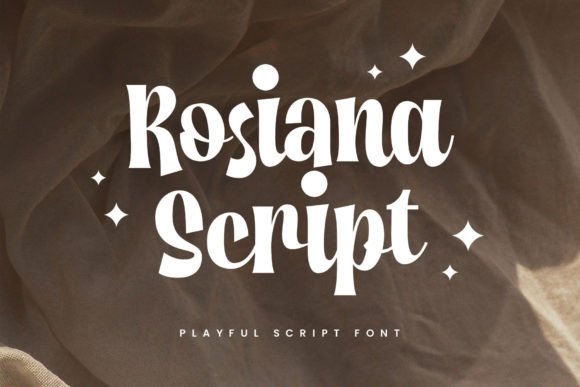
What Is Rosiana Script Font?
Rosiana Script is a bold, fun, and cheerful handwritten font designed to make your projects stand out. With its slightly bouncy baseline and elegant, energetic curves, Rosiana combines playfulness with professional polish. Each letter feels lively and approachable, instantly adding personality and style to your text.
This typeface is crafted to help you create dynamic, engaging designs that grab attention.
Rosiana Script is incredibly versatile and perfect for a wide range of creative applications. For example, it’s ideal for headlines and logotypes. The bold, flowing letterforms make brand names and titles look exciting and fresh.
Flyers, posters, and storefront signs feel more welcoming and impactful with Rosiana’s cheerful energy.
Quotes, stickers, and social media graphics come alive thanks to the font’s stylish curves and dynamic shapes. Your designs will stand out in any feed.
Merchandise like T-shirts, mugs, and tote bags also look more professional and appealing with Rosiana Script.
Even product packaging, labels, and event materials benefit from the font’s approachable, fun aesthetic.
Why Should You Choose Rosiana Script Font?
Rosiana Script stands out for its variety of options and ease of use. The font includes stylistic alternates and ligatures, giving you plenty of ways to customize your text and make it look truly unique.
Designers love that Rosiana Script looks polished and professional straight out of the box, saving time and ensuring consistent results.
Rosiana Script adds energy, friendliness, and a handcrafted feel to every project. Its smooth curves and dynamic flow create visual movement that draws the viewer’s eye.
Even minimalist layouts gain character and warmth with Rosiana’s cheerful, modern style. Whether you’re designing a headline, a quote graphic, or branded merchandise, this font elevates your work with ease.
Using a premium script font shows your dedication to thoughtful, high-quality design. Clients and customers will notice your attention to detail, helping you build trust and stand apart in your field.
Rosiana Script Font is more than just a typeface—it’s a creative powerhouse that helps you communicate ideas with clarity, energy, and style. From logos and storefronts to packaging and digital content, this font adapts seamlessly to any project and leaves a lasting impression.